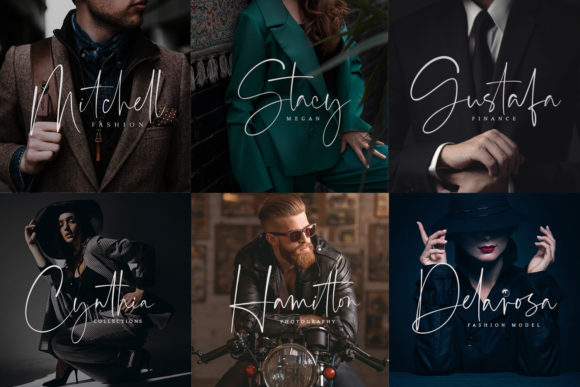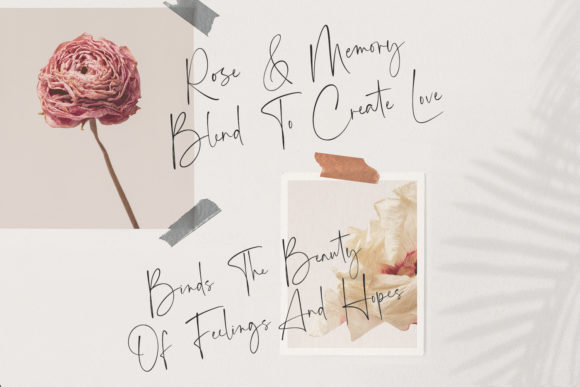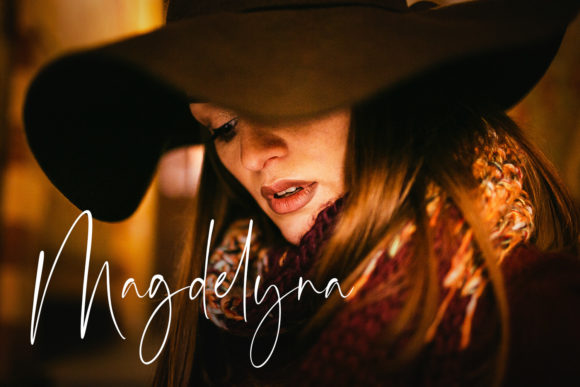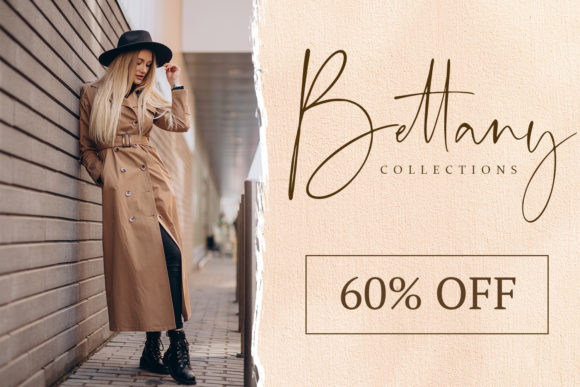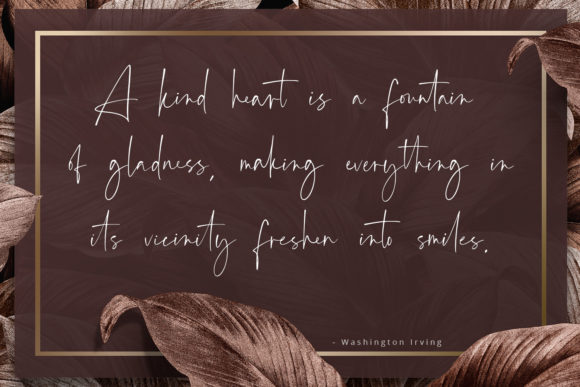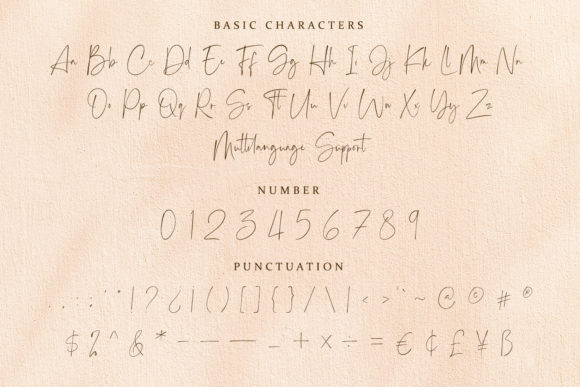
Introducing Angelic Smiles Font: Elevate Your Designs with Elegance
Are you a designer or crafter looking for a font that exudes style and sophistication? Look no further than Angelic Smiles Font, a stunning script font that is sure to elevate your designs to new heights. With its elegant and refined aesthetic, this font is perfect for a variety of projects, from wedding invitations and thank you cards to quotes, greeting cards, logos, and business cards.
A Font that Exudes Elegance and Sophistication
Angelic Smiles Font is a beautifully crafted script font that boasts an incredibly elegant and stylish design. Its refined lines, flowing curves, and delicate swashes make it the perfect choice for designers and crafters who want to add a touch of sophistication to their work. Whether you’re creating a wedding invitation, a logo, or a business card, this font is sure to make a lasting impression.
One of the best things about Angelic Smiles Font is its versatility. This font can be used for a wide range of projects, including:
- Quotes and inspirational posters
- Greeting cards and holiday cards
Angelic Smiles Font is PUA (Private Use Area) encoded, which means that you can access all of the glyphs and swashes with ease. This makes it simple to customize your designs and add your own personal touch. With PUA encoding, you can:
- Access a wide range of glyphs and swashes
- Easily customize your designs
- Add your own personal touch to your work
Why Choose Angelic Smiles Font?
So why should you choose Angelic Smiles Font for your next project? Here are just a few reasons:
- Elegant and sophisticated design: This font boasts a refined and stylish aesthetic that is sure to elevate your designs.
- Versatility: Angelic Smiles Font can be used for a wide range of projects, from wedding invitations to logos and business cards.
- Easy to use: This font is PUA encoded, making it simple to access all of the glyphs and swashes.
- High-quality design: Angelic Smiles Font is designed to the highest standards, ensuring that your designs look professional and polished.
Tips for Using Angelic Smiles Font
Here are a few tips for using Angelic Smiles Font in your designs:
- Pair it with a simple font: Angelic Smiles Font is a statement font, so pair it with a simple font to create a beautiful contrast.
- Experiment with different sizes: This font looks great in a variety of sizes, so don’t be afraid to experiment to find the perfect size for your design.
- Use it sparingly: While Angelic Smiles Font is beautiful, it can be overwhelming if used too much. Use it sparingly to create a beautiful and elegant design.
Angelic Smiles Font is a stunning script font that is sure to elevate your designs to new heights. With its elegant and refined aesthetic, versatility, and ease of use, this font is perfect for designers and crafters who want to add a touch of sophistication to their work. Whether you’re creating a wedding invitation, a logo, or a business card, Angelic Smiles Font is the perfect choice.